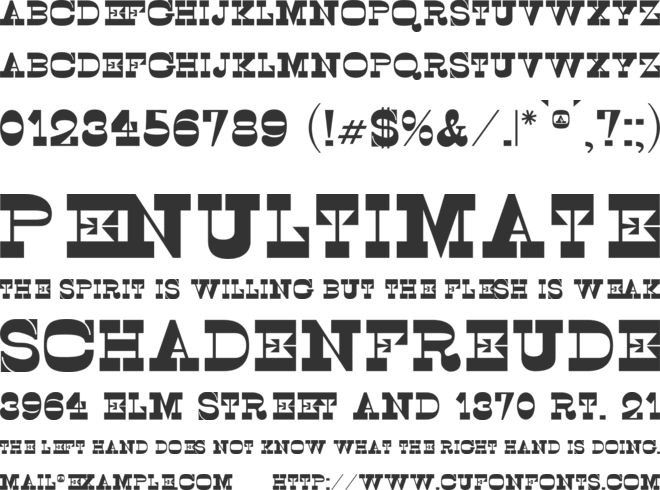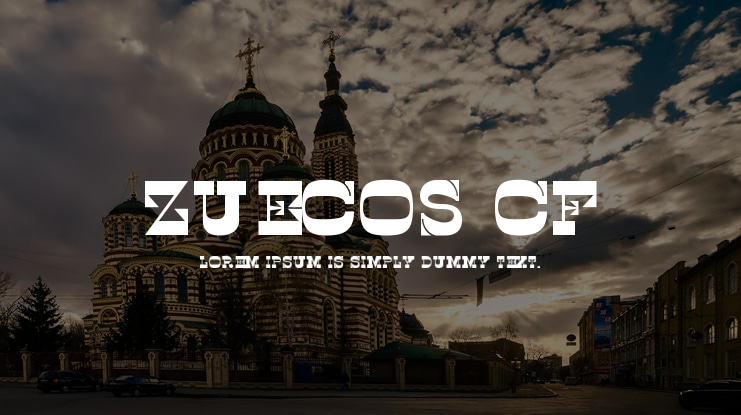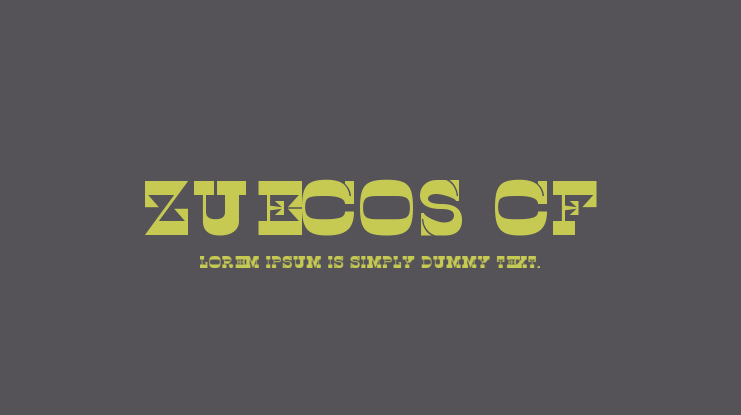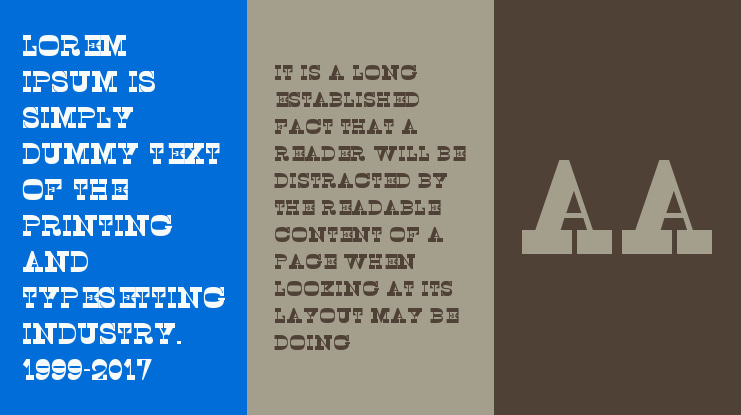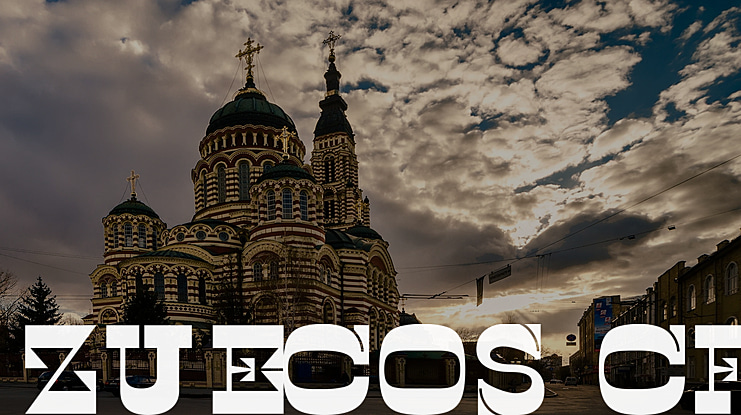
Chuck Mountain, after Specimen of Leavenworth's Patent Wo...
ZUECOS (Spanish for clogs or wooden shoes) is my completely redrawn version of Italian which I found in Specimen of Leavenworth's Patent Wood Type Manufactured by J.M. Debow. (Allentown, New Jersey, n.d., but probably 1840s). It is online at the NYPL. I named this font ZUECOS because of the juxtaposition of very thick slab serifs and their triangular spurs, with comparatively thin horizontal stems. These shapes reminded me of the shoes commonly worn in Mexico by young and old. For example, rotate L to the left 90 degrees and, ¡ya esta!, you have a zueco in profile. ZUECOS is an all caps, bold display typeface suitable for use in Old West and Mexican inspired designs, or in a strongly right-angled geometric design.
This font lent itself to ligatures, so I made quite a few. In addition, there are 29 useful symbols, including arrows, currency, some mathematics, a pilcrow and the like. More...